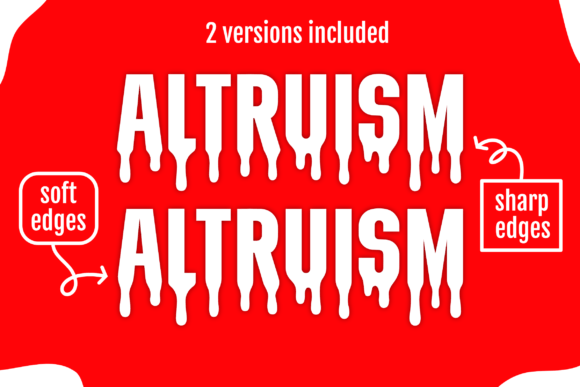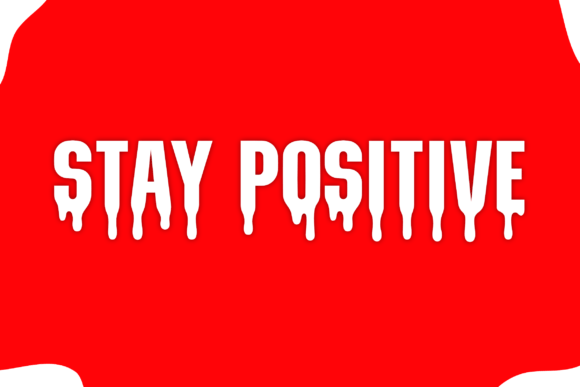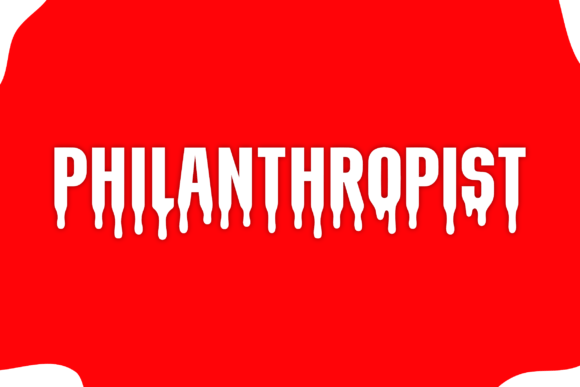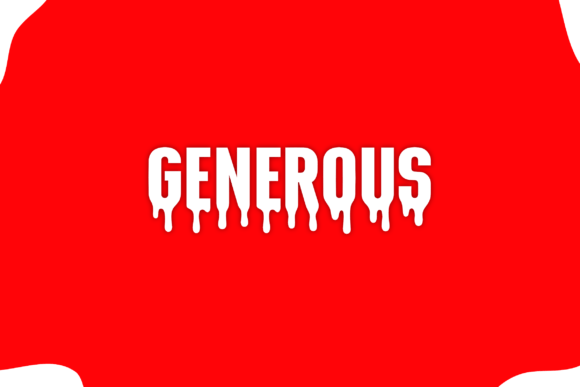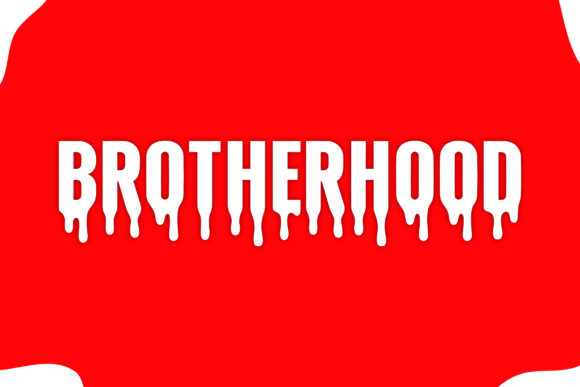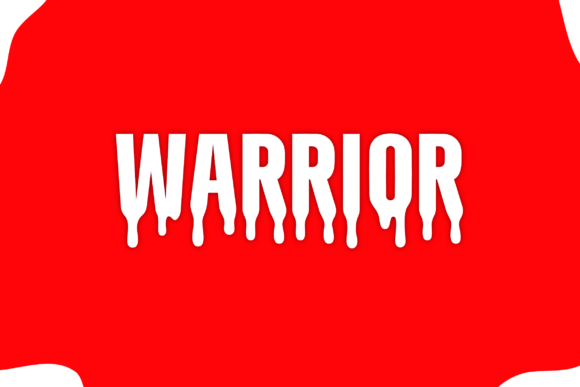
Introducing Dripping Sans: The Bold and Innovative Font that’s Making a Splash
In the world of typography, fonts play a crucial role in conveying the tone and personality of a design. For designers and crafters looking to add a touch of modernity and creativity to their projects, look no further than Dripping Sans. This bold and innovative sans-serif font is making waves with its unique blend of contemporary simplicity and playful, dripping aesthetic.
A Font that’s in a State of Fluid Transformation
What sets Dripping Sans apart from other fonts is its distinctive, fluid transformation effect. Each character appears as if it’s in a state of dynamic movement, as if the ink is still wet and dripping. This creative and eye-catching element adds a sense of energy and playfulness to any design, making it perfect for those seeking a modern and unconventional style.
Perfect for Headlines, Logos, and Artistic Designs
Dripping Sans is a versatile font that can be used in a variety of design applications. Whether you’re creating a bold headline, designing a logo, or crafting an artistic piece, this font is sure to make a lasting impression. Its unique and expressive style injects a sense of movement and energy into any design, capturing the viewer’s attention and leaving a lasting impact.
Key Features of Dripping Sans
• Bold and Innovative Design: Dripping Sans boasts a bold and innovative sans-serif design that’s sure to turn heads.
• Fluid Transformation Effect: Each character features a unique, fluid transformation effect that adds a sense of movement and energy.
• Contemporary Simplicity: Despite its playful aesthetic, Dripping Sans maintains a sense of contemporary simplicity, making it perfect for modern designs.
• Perfect for Creative Projects: This font is ideal for designers and crafters looking to add a touch of creativity and unconventional style to their projects.
Why Choose Dripping Sans?
With so many fonts available, why choose Dripping Sans? Here are just a few reasons why this font stands out from the rest:
• Unique and Eye-Catching: Dripping Sans is a true showstopper, with a unique and eye-catching design that’s sure to capture the viewer’s attention.
• Versatile: This font can be used in a variety of design applications, from headlines and logos to artistic designs and more.
• Easy to Read: Despite its bold and playful aesthetic, Dripping Sans remains easy to read, making it perfect for designs where legibility is key.
Tips for Using Dripping Sans
To get the most out of Dripping Sans, here are a few tips to keep in mind:
• Use it Sparingly: Due to its bold and playful nature, it’s best to use Dripping Sans sparingly to avoid overwhelming the viewer.
• Pair it with a Neutral Font: Pair Dripping Sans with a neutral font to create visual interest and add depth to your design.
• Experiment with Colors: Don’t be afraid to experiment with different colors to add an extra layer of creativity to your design.
In conclusion, Dripping Sans is a bold and innovative sans-serif font that’s perfect for designers and crafters looking to add a touch of modernity and creativity to their projects. With its unique fluid transformation effect, contemporary simplicity, and playful aesthetic, this font is sure to make a lasting impression. Whether used in headlines, logos, or artistic designs, Dripping Sans is the perfect choice for those seeking a modern and unconventional style that stands out from the ordinary.